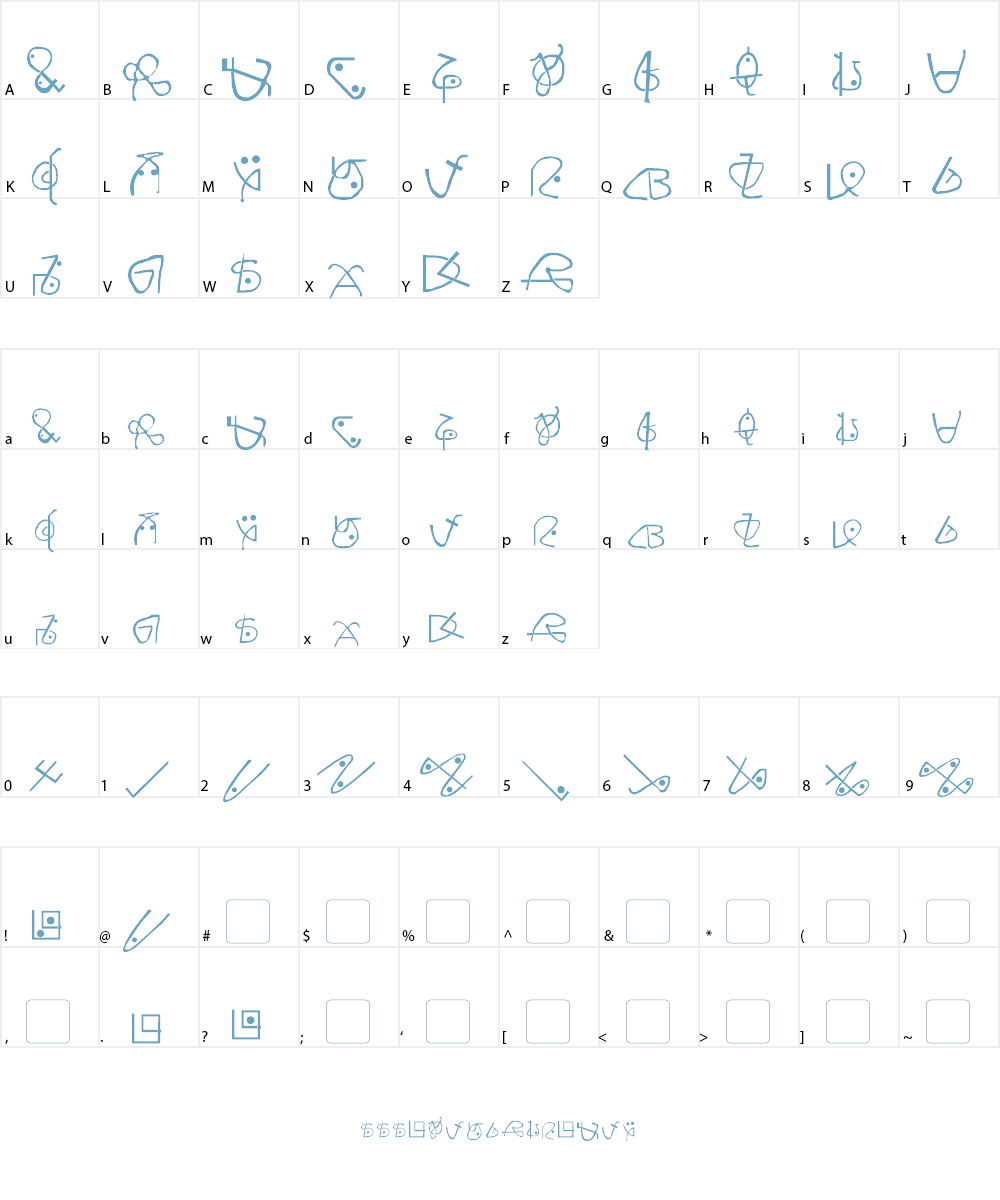
Giedi Zentran is an updated of Jim Sorenson’s Zentraedi Script font (with permission). The face is based on the computer writing found on Zentraedi computers in the first arc of the legendary Robotech television show. Includes all known canonical symbols.